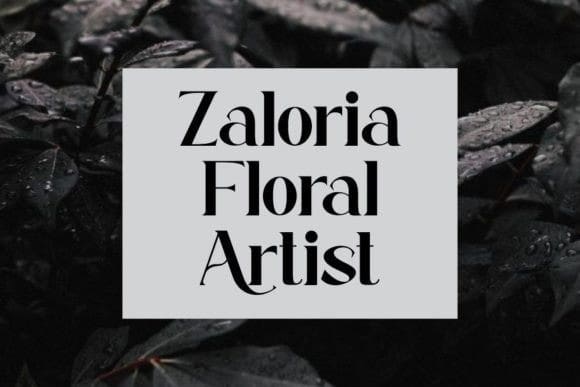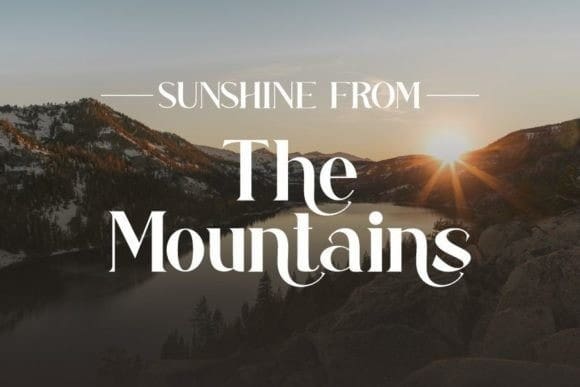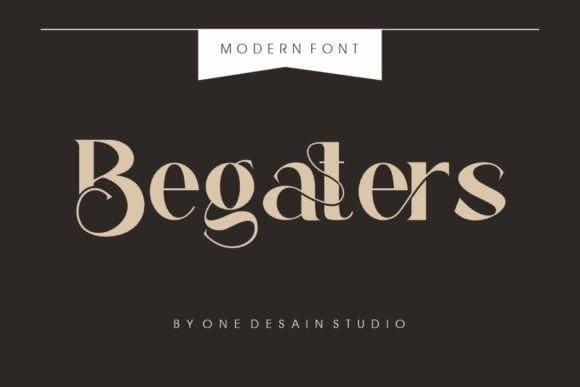
Begaters Font
Begaters Font is a chic + modern slab serif font. This font is perfect for branding, logos, social media, prints, stickers, shirts, SVG files, and more!
Begaters Font are unique in that they can be used for a variety of design styles. This is perfect for a free-spirited boho design as well as for a classier editorial look!
There are lots of fun stylistic alternatives available for use with this font. These letters are embedded into font files and easily accessible in programs such as Photoshop and Illustrator.